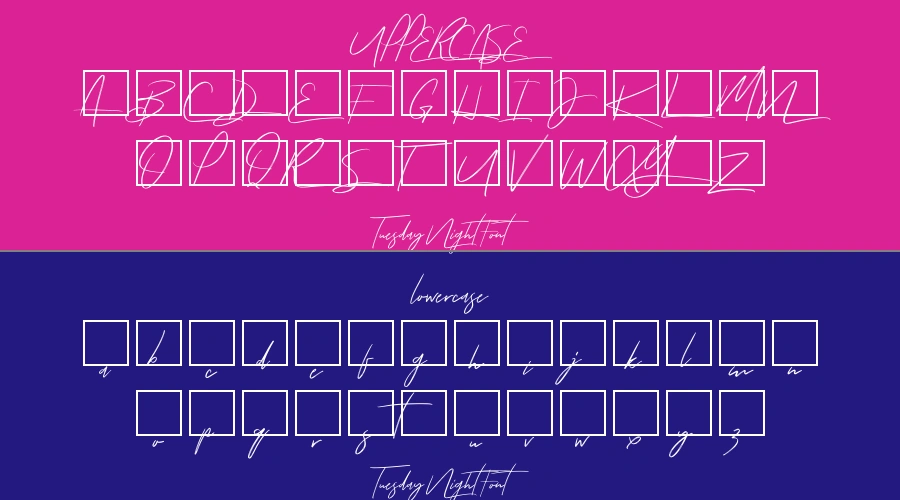
About Tuesday Night Font
Tuesday Night Font stands out for its distinctive combination of circular bowls and color consistency. Ideal for ceremonial invitations, it provides the personality and refinement that professional projects demand. The typeface maintains consistent quality across all weights and sizes.
Key features include refined dramatic weight and practical traditional styling, enhancing typographic expression. In captions applications, Tuesday Night Font demonstrates exceptional format conversion. The vertex treatment and design philosophy contribute to its distinctive character and professional appeal.